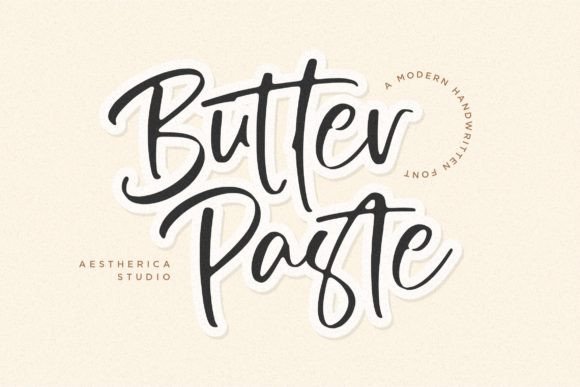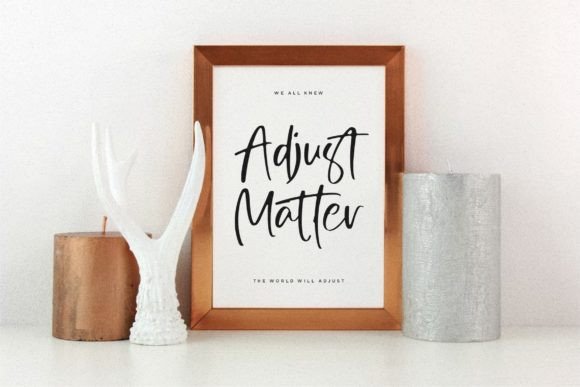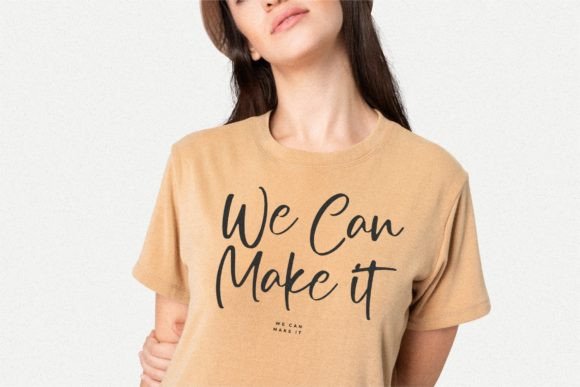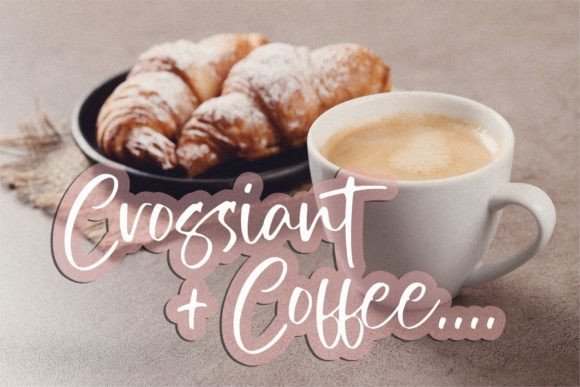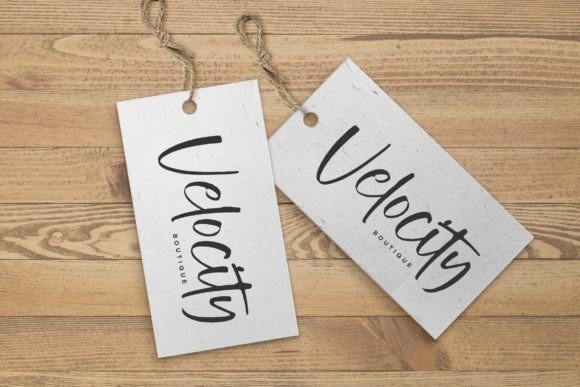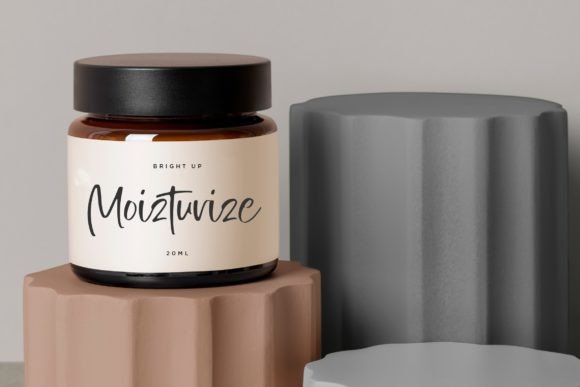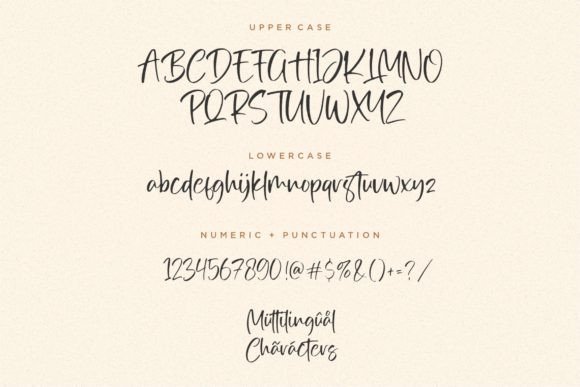
Butter Paste Font
About Butter Paste Font
Butter Paste is a handwritten font that blends perfectly and is perfect for your project.
You can use it for logos, branding, greeting cards, t-shirts, cases, posters, and more.